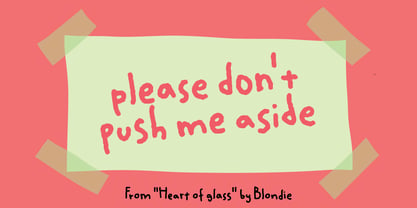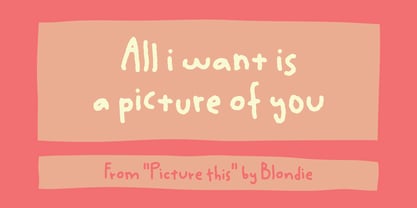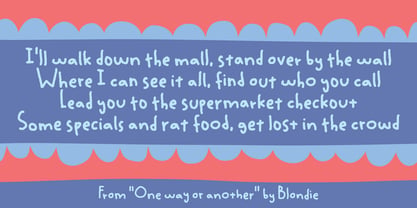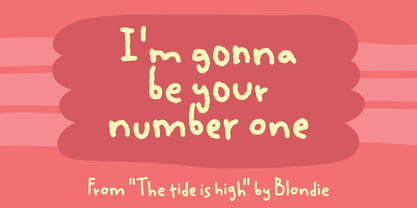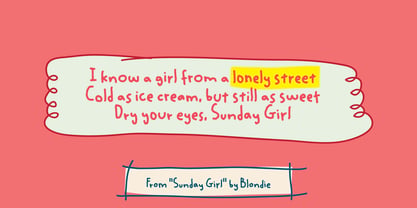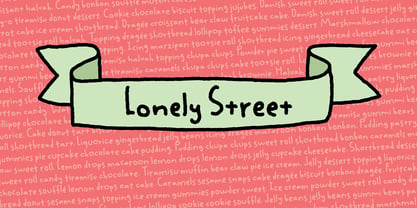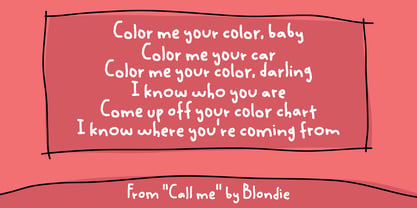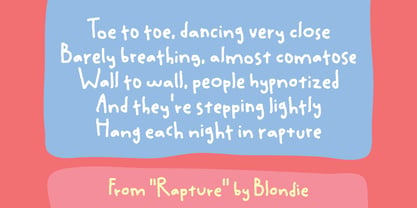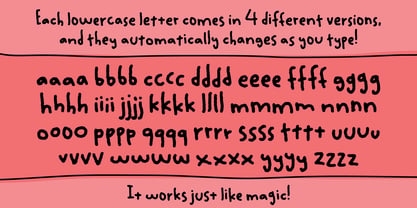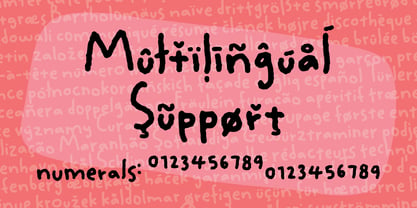
Lonely Street
La famille de polices Lonely Street a été conçue par Jakob Fischer et publiée par PizzaDude.dk. Lonely Street contient 2 styles et options de package familial. En savoir plus sur cette famille
Hello there! Do you mind if I treated you with some tasty and crispy chips? Or would you mind if I even treated you with a tasty and crispy typeface as well? If you are with okay with this, then I would like to serve you my Lonely Street font - a dreamer, a silly heart, jabber box and it doesn’t take a thing in life seriously - but with a quiet whisper, just dances through everyday boring things … leaving a trail of happiness and joy. Each lower-case letter comes in 4 different versions, and they automatically changes as you type!